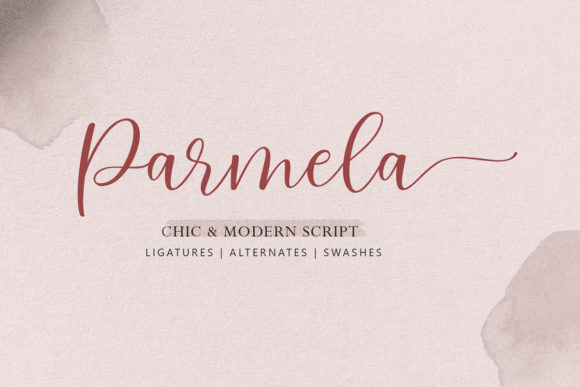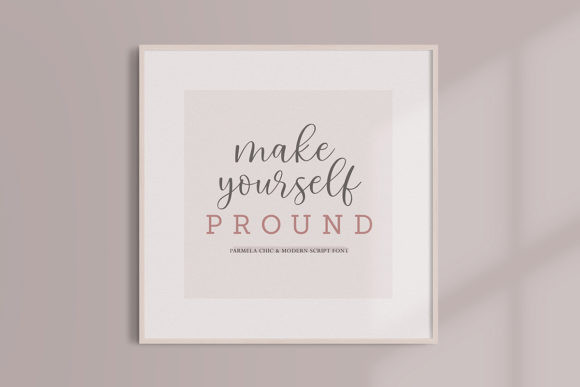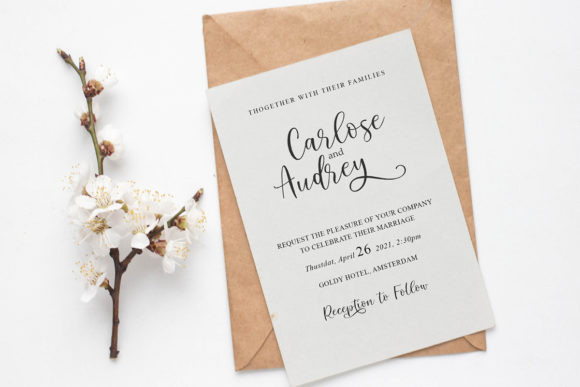
Parmela Font
Parmela is a magical handwritten font carefully created with a touch of elegance. Whether you’re looking for fonts for Instagram or calligraphy scripts for DIY projects, this font will turn any creative idea into a true piece of art!